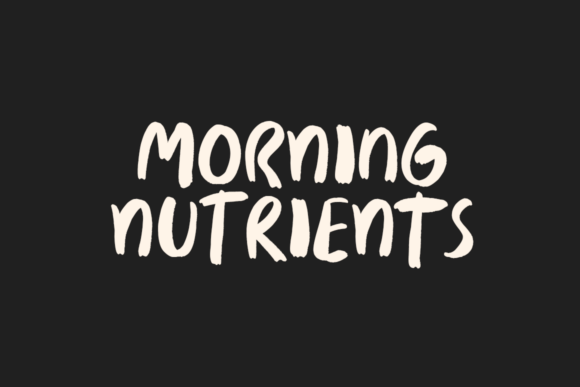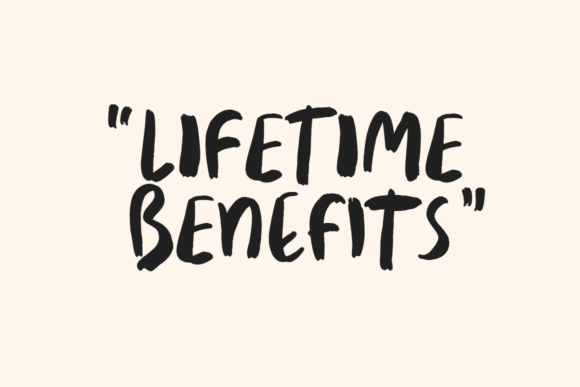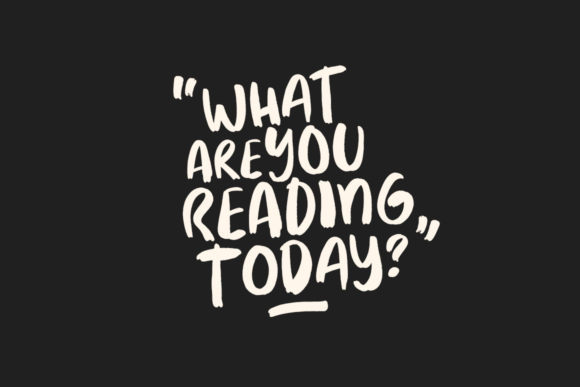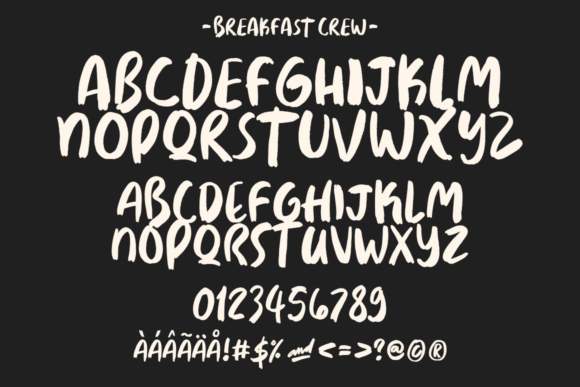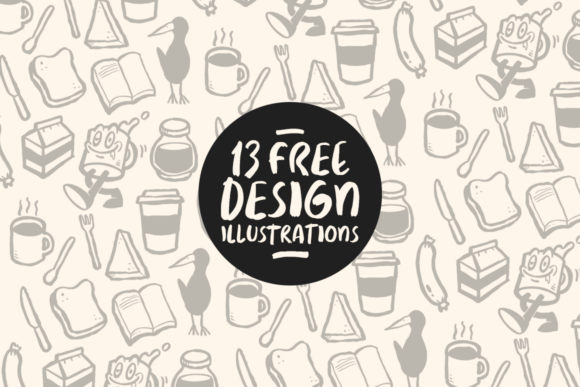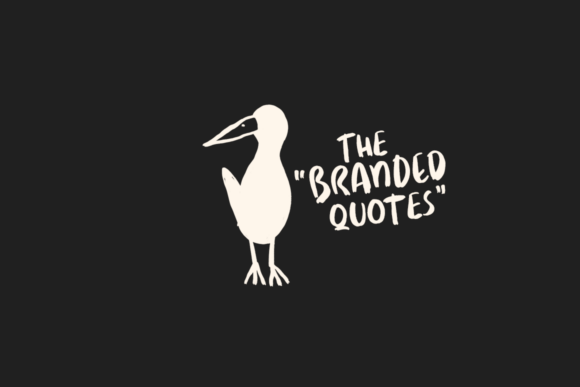
Start Your Day with a Smile: Introducing Breakfast Crew Font
Do you remember scribbling down breakfast plans on a sticky note or writing your favorite recipe on a chalkboard? Those simple, handwritten notes hold a special charm that can instantly brighten up your day. The Breakfast Crew Font captures this same feeling, transporting you to a cozy café or a sunny morning morning.
This hand-drawn font is perfect for designers who want to add a personal touch to their projects. Whether you’re working on a food packaging design, a lifestyle blog, or a cozy café branding, Breakfast Crew Font is the ideal choice. Its natural flow and slightly uneven edges create a warm, inviting atmosphere that’s sure to delight your audience. Plus, with bonus doodles included, you can take your design storytelling to the next level.
Breakfast Crew Font Key Features
- Font Style: A fun, playful and energetic sans-serif font, perfect for titles and headings.
- Character Count: The font includes a wide range of characters, including uppercase and lowercase letters, numbers, and punctuation marks.
- Unique Characteristics: The font features a unique, hand-drawn feel with subtle irregularities and imperfections that give it a personal touch.
Breakfast Crew Font Review
I recently had the chance to dive into the Breakfast Crew Font, and here’s my honest take.
- The font has a fun, playful vibe that’s perfect for kids’ content, food brands, or anything related to morning routines.
- The bold and regular weights work well together, allowing for flexibility in design applications.
- The font is well-suited for headings and titles, making it a great choice for adding visual interest to your design.
- The font may be too loud or overwhelming for more serious or professional content, so use it judiciously.
- There are only two weights, which might limit its usability in situations where a more extensive weight range is needed.
- The font’s design might not be suitable for long blocks of text, as it can become tiring to read.
Overall, the Breakfast Crew Font is a great choice when you need a fun, attention-grabbing font for a specific project. Just be mindful of its limitations, and you’ll be golden.
Use Breakfast Crew Font for playful, casual designs.
Pair it with bold, bright colors to create a fun and energetic look.
Experiment with different font sizes and arrangements to add visual interest.
Use Breakfast Crew Font for:
Restaurant menus and branding.
Food and beverage packaging.
Playful social media graphics.
Alternatives to Breakfast Crew Font for Designers
Great Vibes is a modern, elegant script font perfect for creating a friendly and approachable atmosphere. It’s ideal for use in logos, headings, and titles in advertising, packaging, and editorial design. Great Vibes is a great alternative to Breakfast Crew Font as it offers a more sophisticated and refined feel.
Dancing Script is a lively and playful script font that adds a touch of whimsy to any design. It’s perfect for use in social media graphics, posters, and flyers, and is especially well-suited for creating a fun and youthful vibe. Dancing Script is a good alternative to Breakfast Crew Font when you need a more energetic and dynamic feel.
Carolyna Pro is a elegant and sophisticated script font that’s perfect for use in luxury branding, fine dining, and high-end fashion. It’s ideal for creating a sense of sophistication and refinement, and is a great alternative to Breakfast Crew Font when you need a more polished and refined feel.
Alex Brush is a elegant and refined script font that’s perfect for use in editorial design, branding, and packaging. It’s ideal for creating a sense of sophistication and elegance, and is a good alternative to Breakfast Crew Font when you need a more classic and timeless feel.